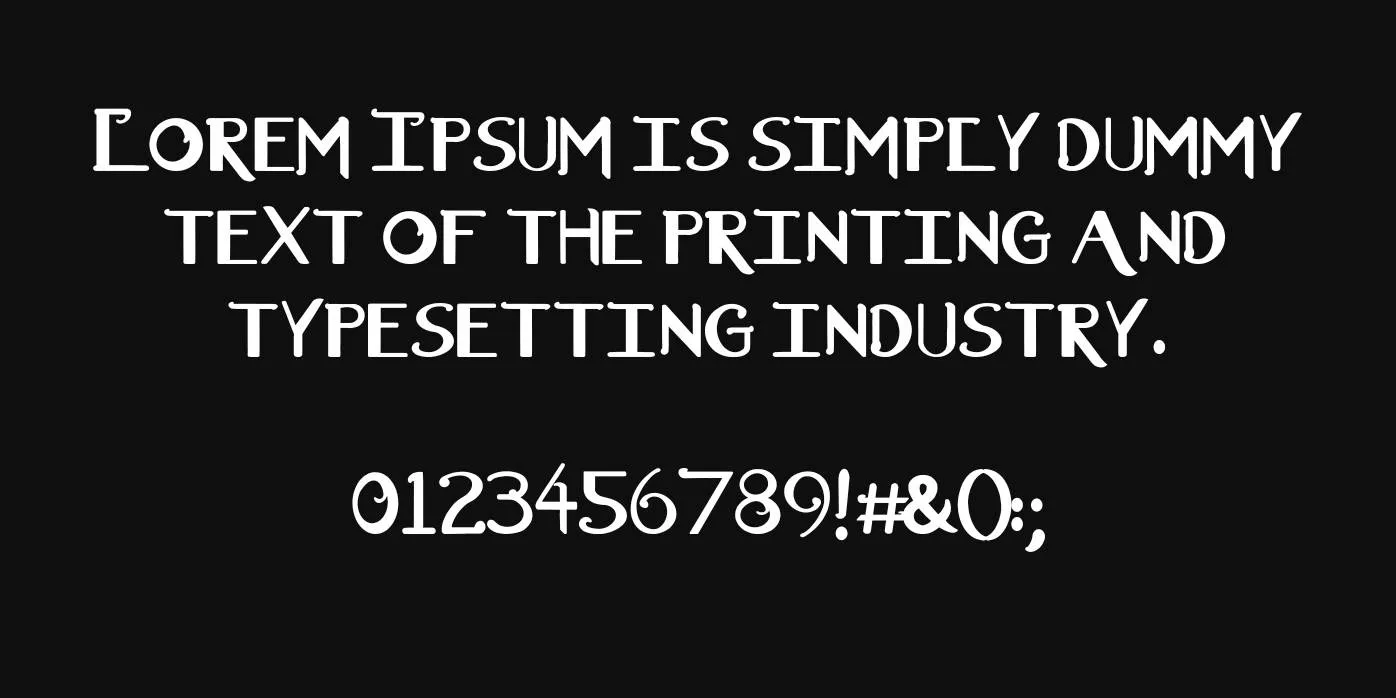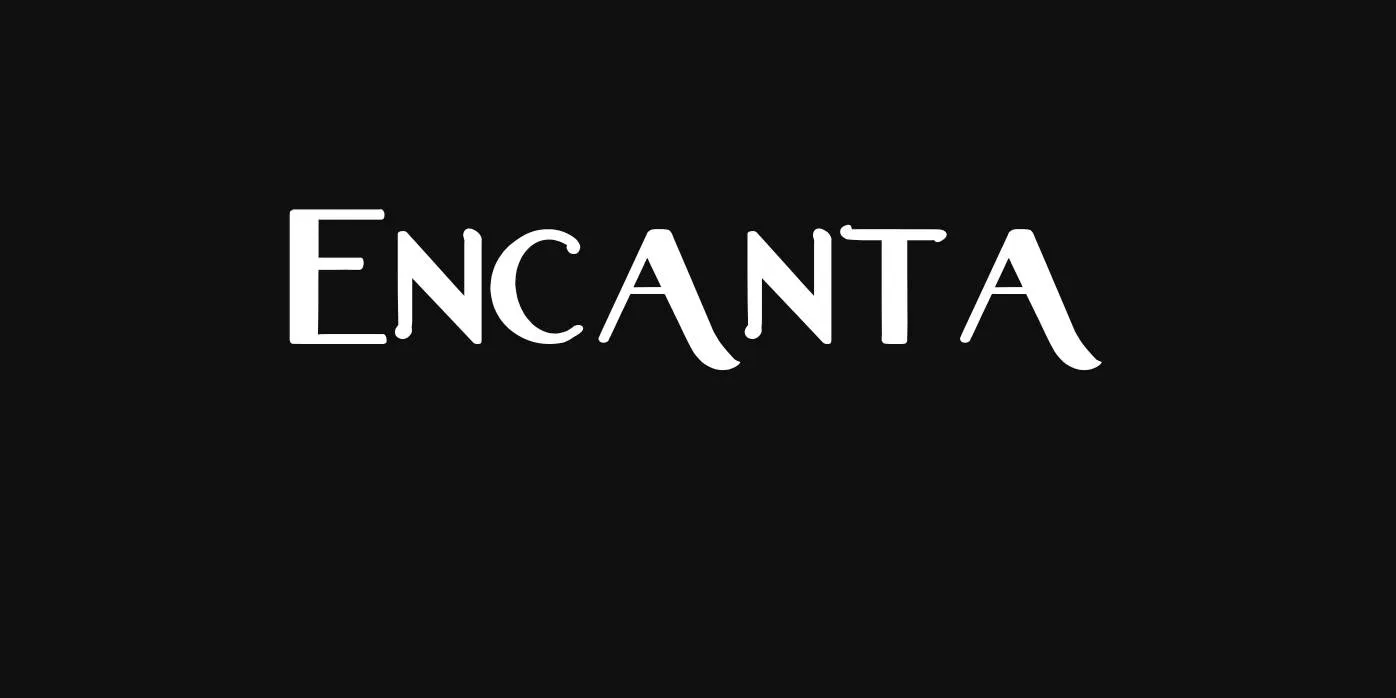
Encanta Font
Encanta Font is a decorative texture. The characters of this texture are fantastic because they are readable, stylish, and attractive as well as classic. Walt Disney designed this decorative texture. Encanta Font contains unique uppercase, lowercase, glyphs, punctuations and numbers.